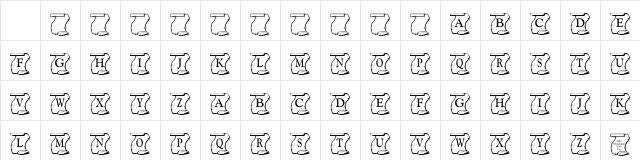
KR Declaration Regular Font Preview
KR Declaration Regular
Design Context for KR Declaration Typeface
KR Declaration is a composed and adaptable typeface that performs quietly and consistently across a wide range of design contexts.